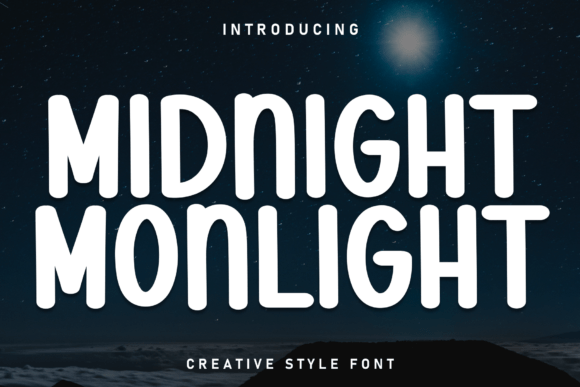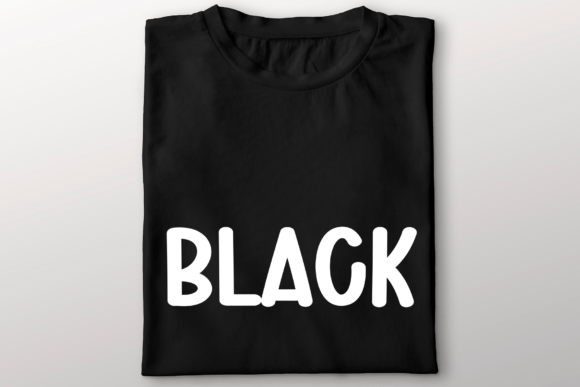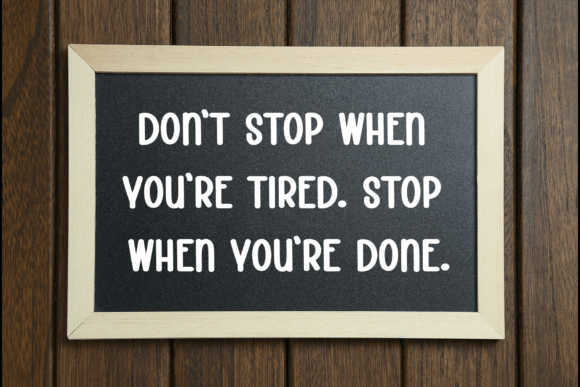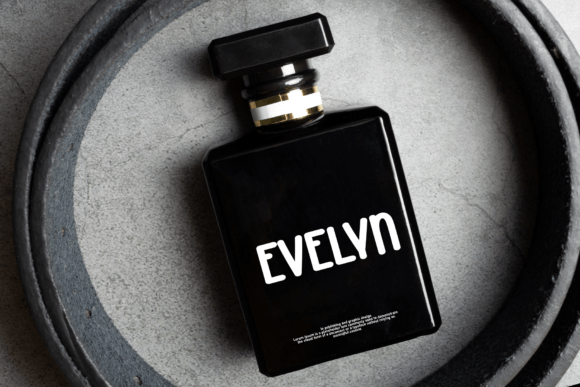
Midnight Monlight Font
About the Midnight Monlight Font
Experience the unique personality of Midnight Monlight Font, a font designed for impact. Make a statement with this font, a confident and stylish typeface that blends hand-lettered charm with eye-catching thickness. Perfect for logos, headlines, t-shirts, social media posts, and packaging, this font commands attention while keeping a fun, friendly vibe. Its dynamic strokes and smooth curves give every design a bold personality and a modern handwritten feel.
Midnight Monlight excels in applications requiring a strong visual presence, such as headlines, logos, and short-form content on social media or packaging. Its bold personality makes it ideal for brands aiming for a youthful, approachable, yet confident image. Avoid using it for lengthy body text or UI elements; the weight and informality may hinder readability in continuous prose.
Pairing Midnight Monlight with a clean sans-serif like Open Sans for body copy creates a balanced and modern aesthetic. For a more playful feel, consider pairing it with a rounded geometric sans-serif. A classic serif like Garamond, used sparingly, can add a touch of sophistication, contrasting the handwritten feel of Midnight Monlight.
Its core personality is bold and friendly, blending a modern sensibility with a handcrafted touch. This makes it suitable for brands in the fashion, food, beverage, or entertainment industries seeking a distinctive, eye-catching visual identity.
Midnight Monlight Font Usage Examples
Midnight Monlight Font Example